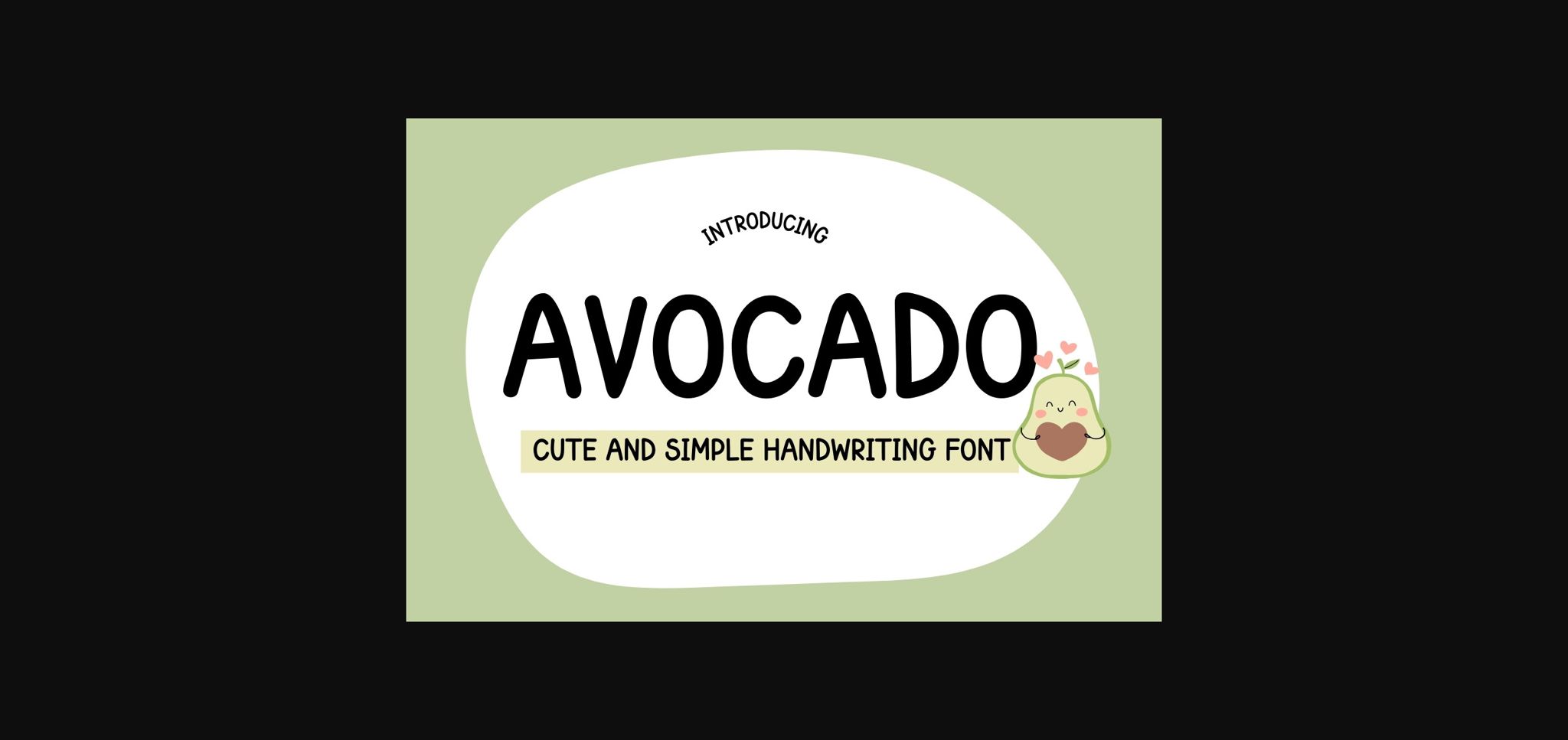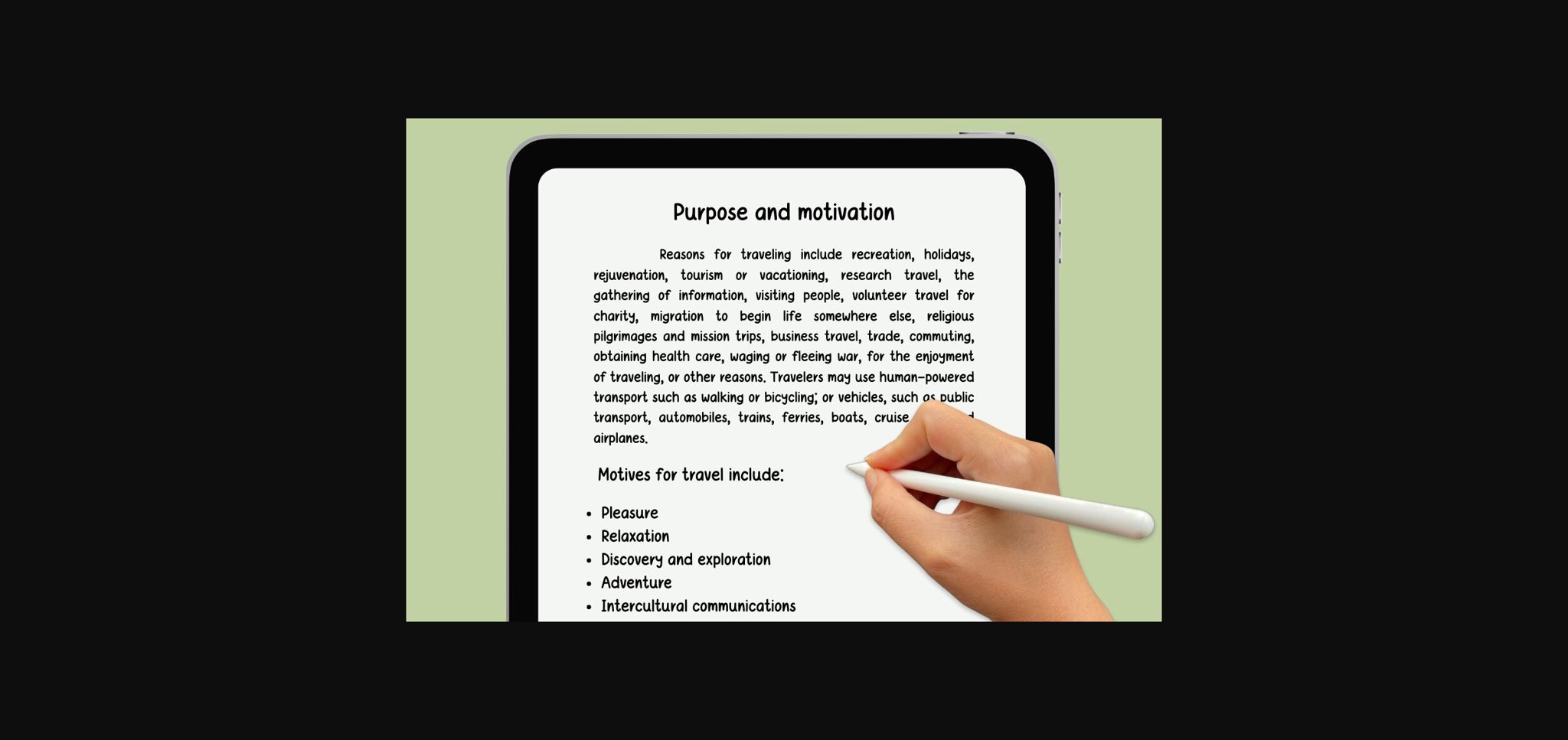
About Avocado Font
Introducing Avocado a sleek and legible handwriting sans-serif font designed to enhance your note-taking experience. Whether you’re using it for digital planners, journals, educational notes, or greeting cards, Avocado offers clarity and style. Its clean lines and effortless readability make it an ideal choice for a variety of applications, including quotes, T-shirts, branding, and more. Elevate your designs with Avocado and enjoy its versatility across different projects and platforms.